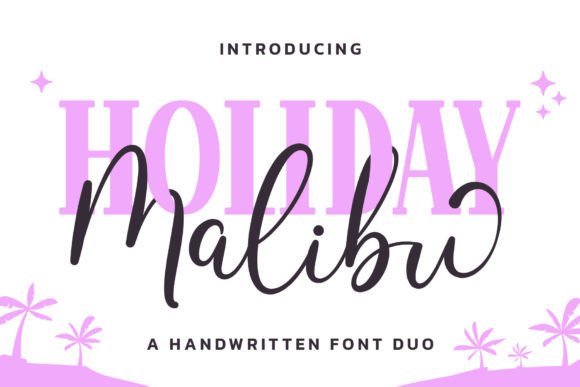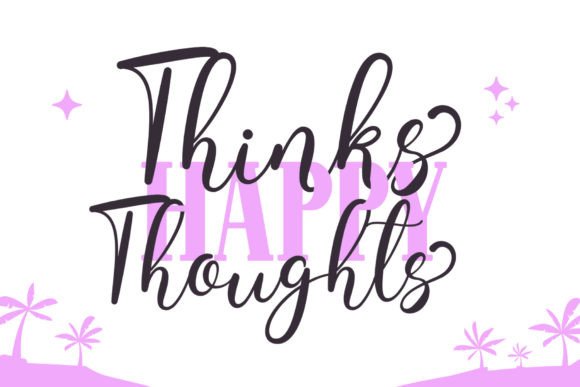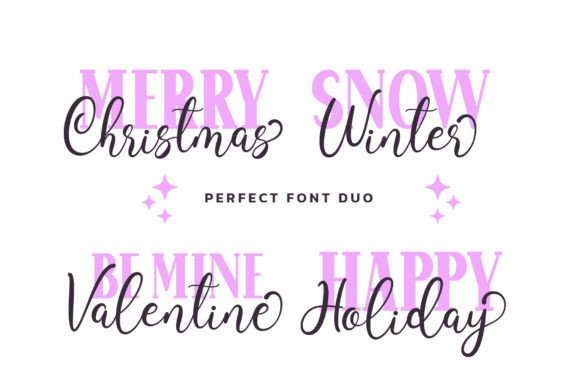
Malibu Holiday Duo Font
About the Malibu Holiday Duo Font
Make a bold statement with Malibu Holiday Duo Font, a powerful and memorable font. Malibu Holiday is a lovely and cute font duo with two styles – script monoline and serif display. This font is inspired by the beauty of Malibu, which makes it suitable for summery, or kids’-related products. This font will brighten up each of your designs.
Its playful, summery spirit makes it ideal for projects needing a lighthearted touch, such as branding for ice cream shops, children’s books, beach-themed products, or invitations to summer events. Headlines, logos, and short text blocks will benefit most from its charming aesthetic. Avoid using it for body text or lengthy paragraphs; its delicate strokes aren’t optimized for readability in large quantities.
For optimal visual balance, pair Malibu Holiday’s script with a clean sans-serif like Montserrat for body copy or a geometric sans-serif like Futura for a more modern feel. The serif display style pairs well with a contrasting, bolder sans-serif such as Bebas Neue for impactful headlines or a more traditional serif like Garamond for a sophisticated, yet playful look.
Malibu Holiday’s core personality is undeniably cheerful and carefree. Its monoline script lends an air of delicate whimsy, while its serif display offers a touch of vintage charm. This combination makes it perfect for conveying a sense of fun, summery nostalgia, or youthful energy.
Malibu Holiday Duo Font Usage Examples
Malibu Holiday Duo Font Example